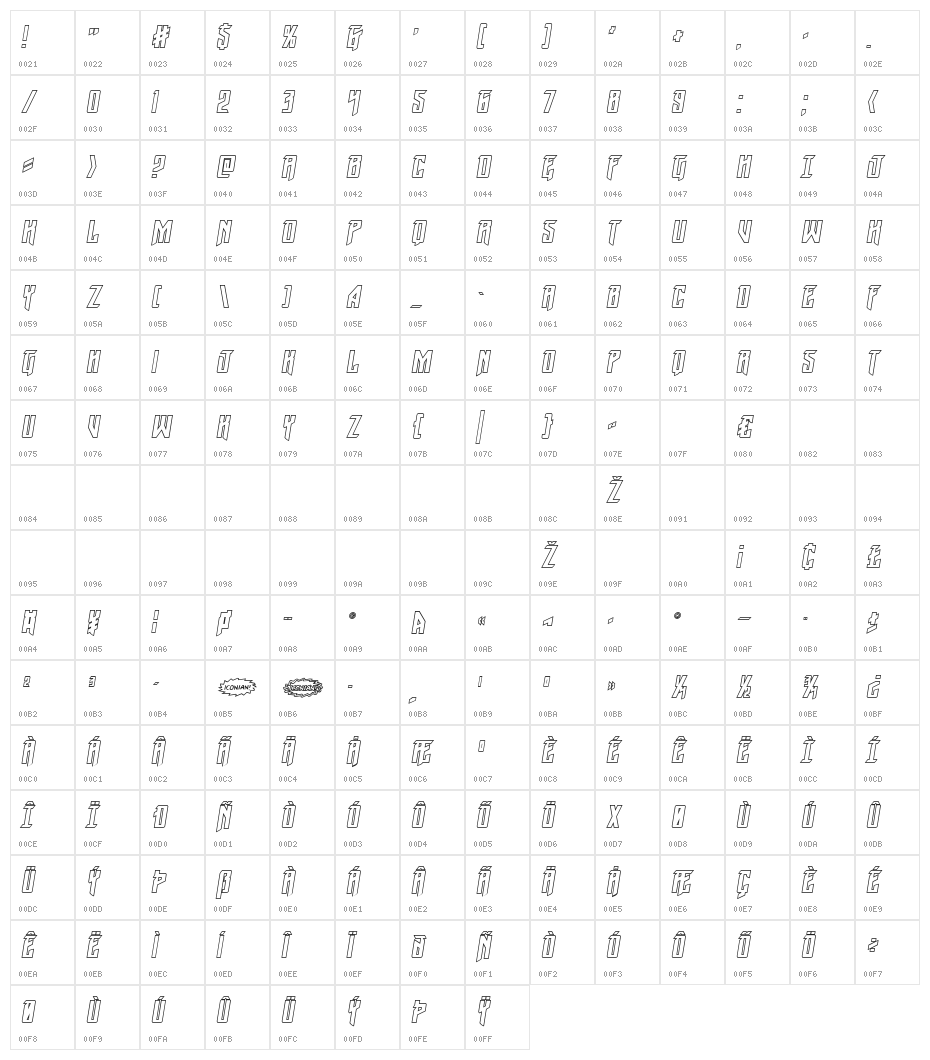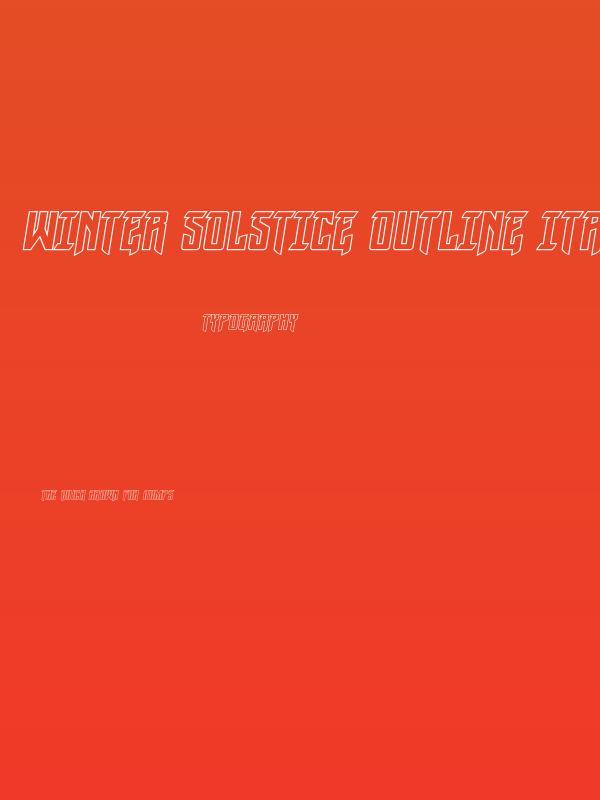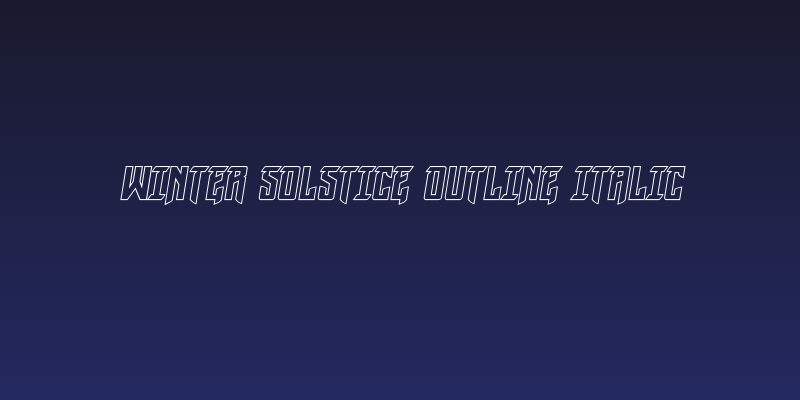
Winter Solstice Outline Italic Font
Winter Solstice Outline Italic Description
This font features a bold, angular design with a distinct outline style, giving it a sharp and dynamic appearance. The italic slant adds a sense of motion and energy, making it ideal for attention-grabbing headlines or titles. Each character is outlined, creating a hollow effect that enhances its modern and edgy look. The uppercase and lowercase letters maintain a consistent style, with numbers and special characters following suit. The overall design is both futuristic and slightly aggressive, perfect for projects that require a strong visual impact.
| Proposed Projects | Suitable for sports branding, event posters, video game titles, and edgy graphic designs. |